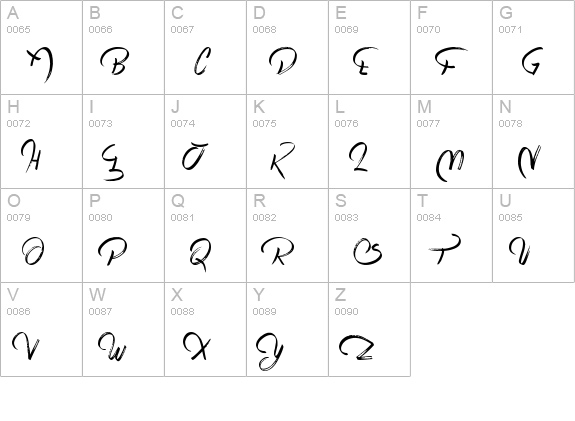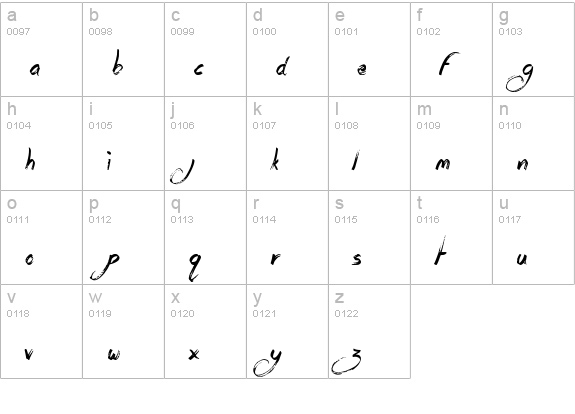
Mercy Me Font Details
Mercy Me is a free for personal use font in the Script > Calligraphy category. It has been downloaded 225 times and is available for Windows, Mac and Linux.
Introducing Mercy Me, a stunning and versatile font that is sure to captivate your audience with its elegant and modern design. This font embodies sophistication and grace, making it perfect for a wide range of projects, from branding and advertising to invitations and social media posts. Mercy Me is a free font that combines the perfect balance of simplicity and creativity. Its clean lines and graceful curves create a harmonious flow that will elevate any design. Whether you're looking to create a sleek and professional look or add a touch of elegance to your project, this font is the perfect choice. Available for free download at FontsMarket.com, Mercy Me offers a seamless user experience. With just a few clicks, you can easily access this font and enhance your creative endeavors. Its versatility allows you to experiment with various styles, from bold and impactful to delicate and refined. The attention to detail in Mercy Me is truly remarkable. Each character is meticulously crafted, resulting in a font that is both visually stunning and highly legible. Its extensive character set includes a wide range of punctuation marks, numerals, and special symbols, ensuring that you have everything you need to bring your vision to life. Whether you're a professional designer or a passionate hobbyist, Mercy Me is a font that will inspire and empower you to create beautiful and impactful designs. Its free availability at FontsMarket.com makes it accessible to all, allowing anyone to elevate their projects with this exceptional font. Don't miss out on the opportunity to enhance your designs with Mercy Me. Download it for free at FontsMarket.com and unlock a world of creative possibilities. Experience the beauty and versatility of this font and let it bring your ideas to life with its timeless elegance and charm.